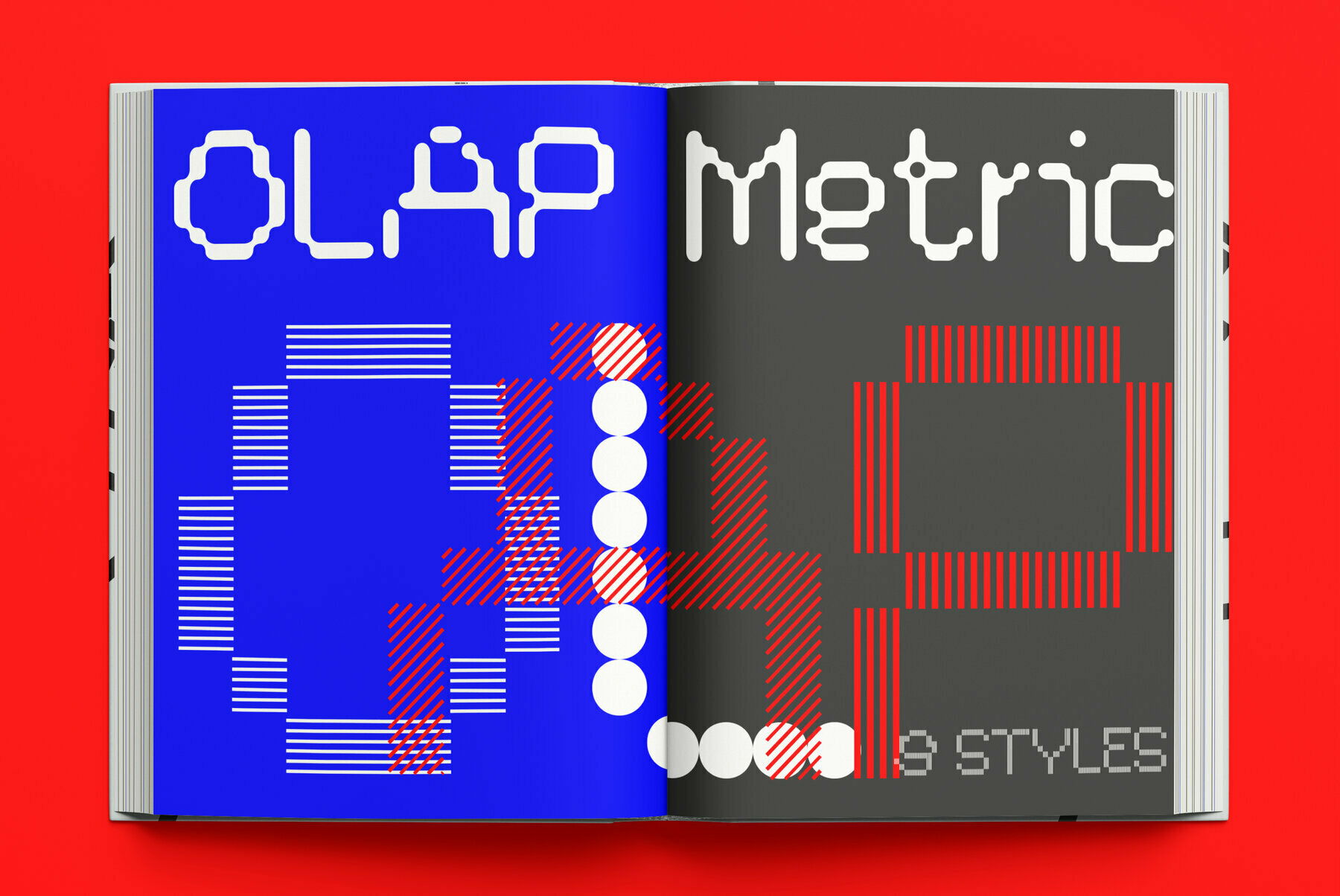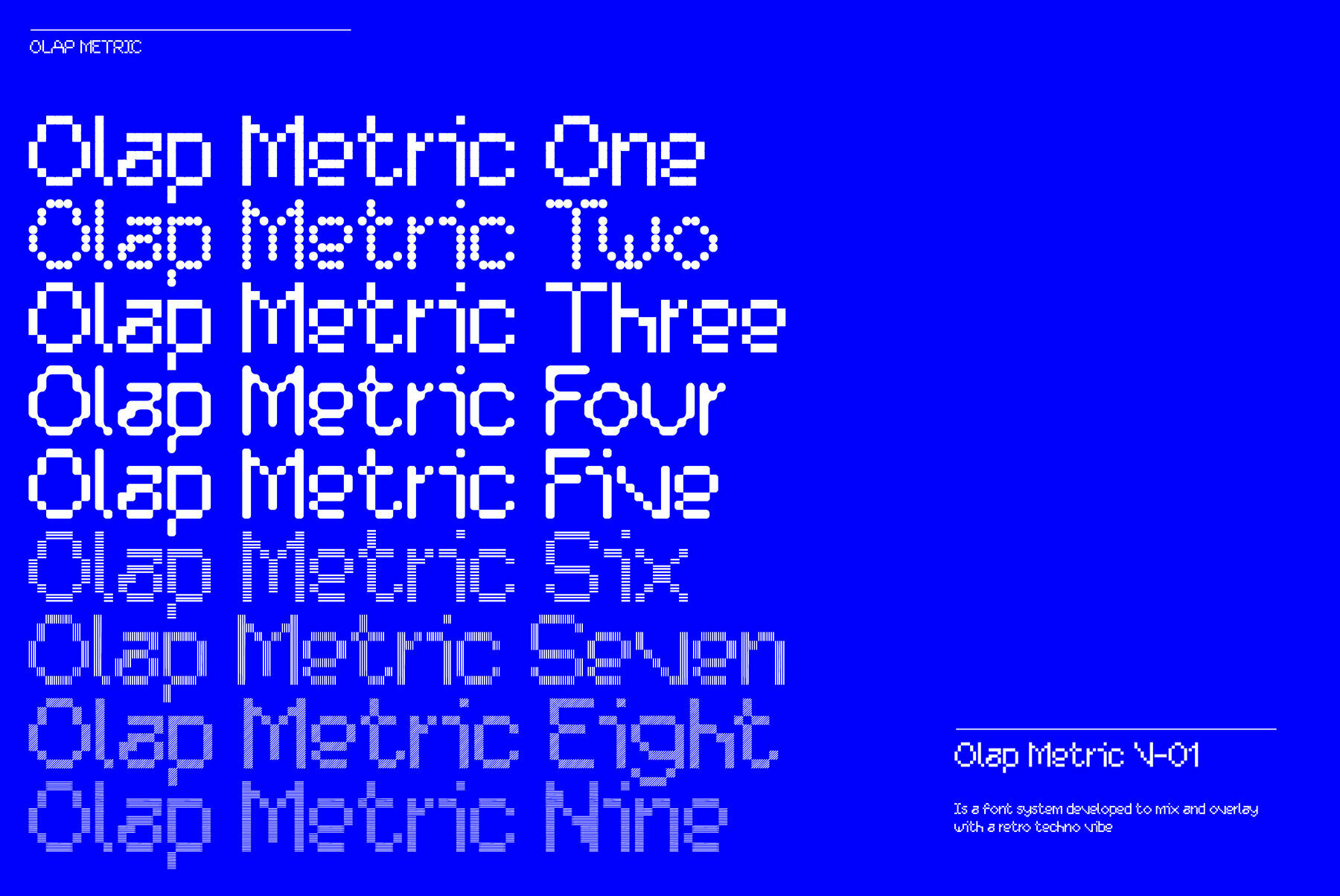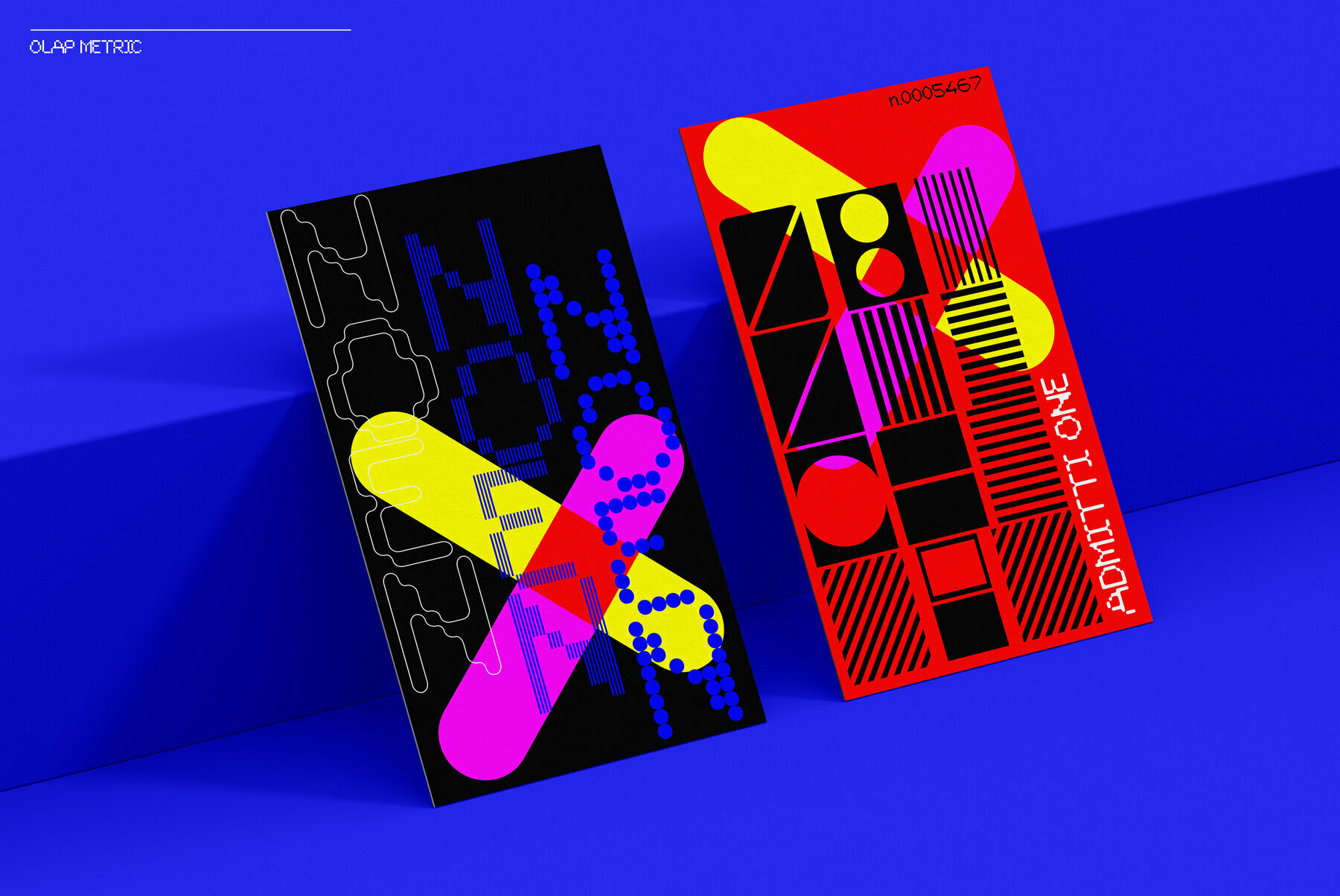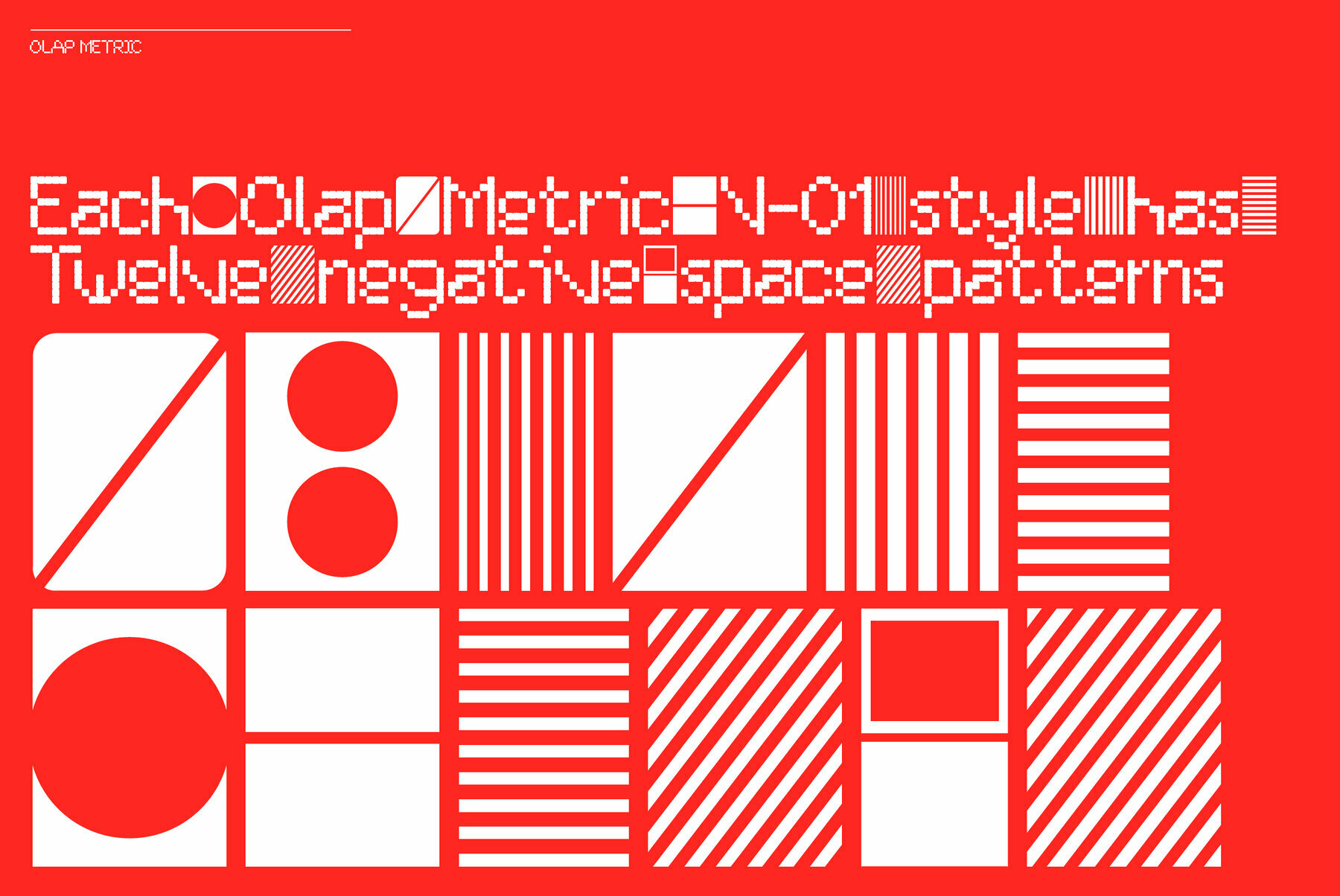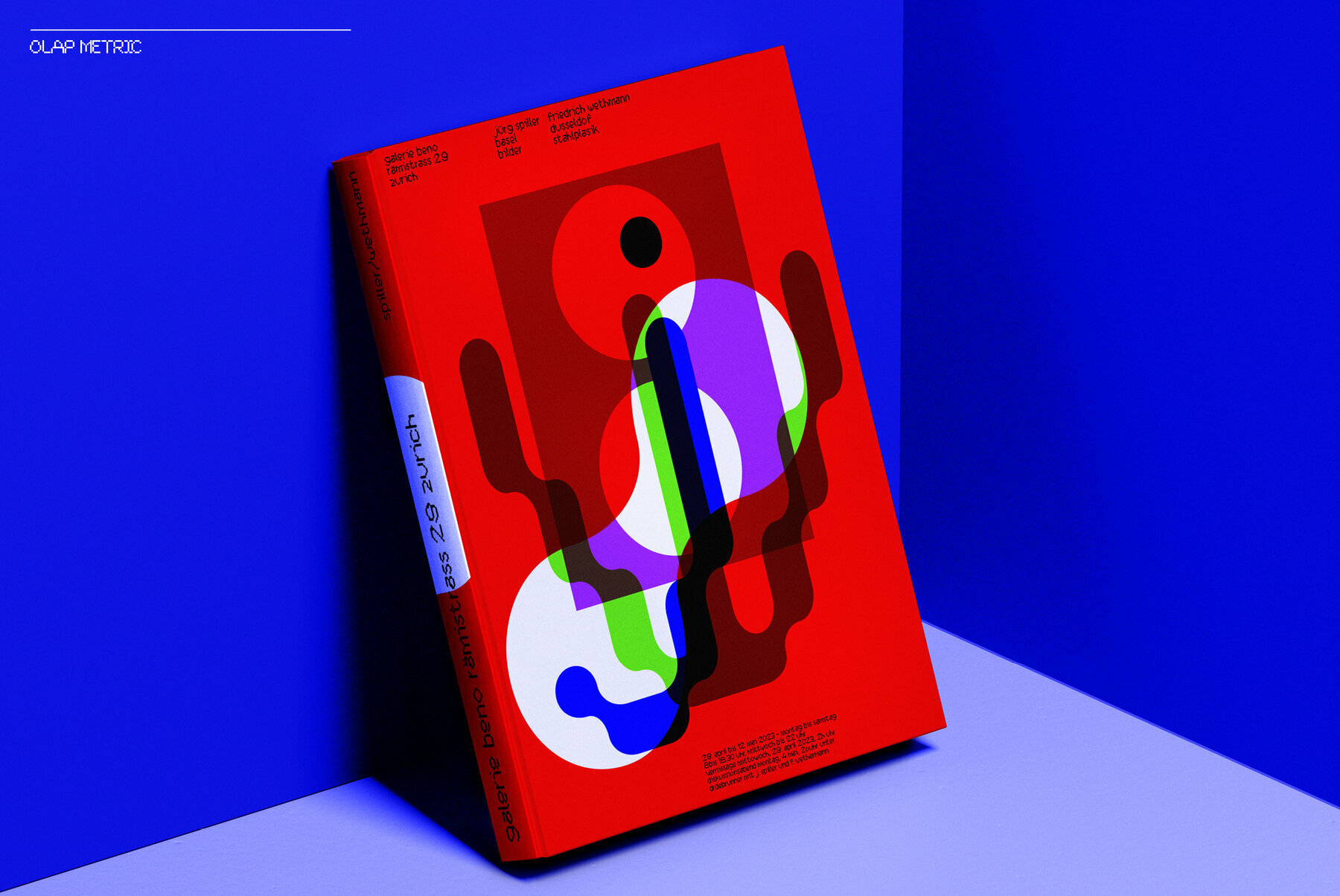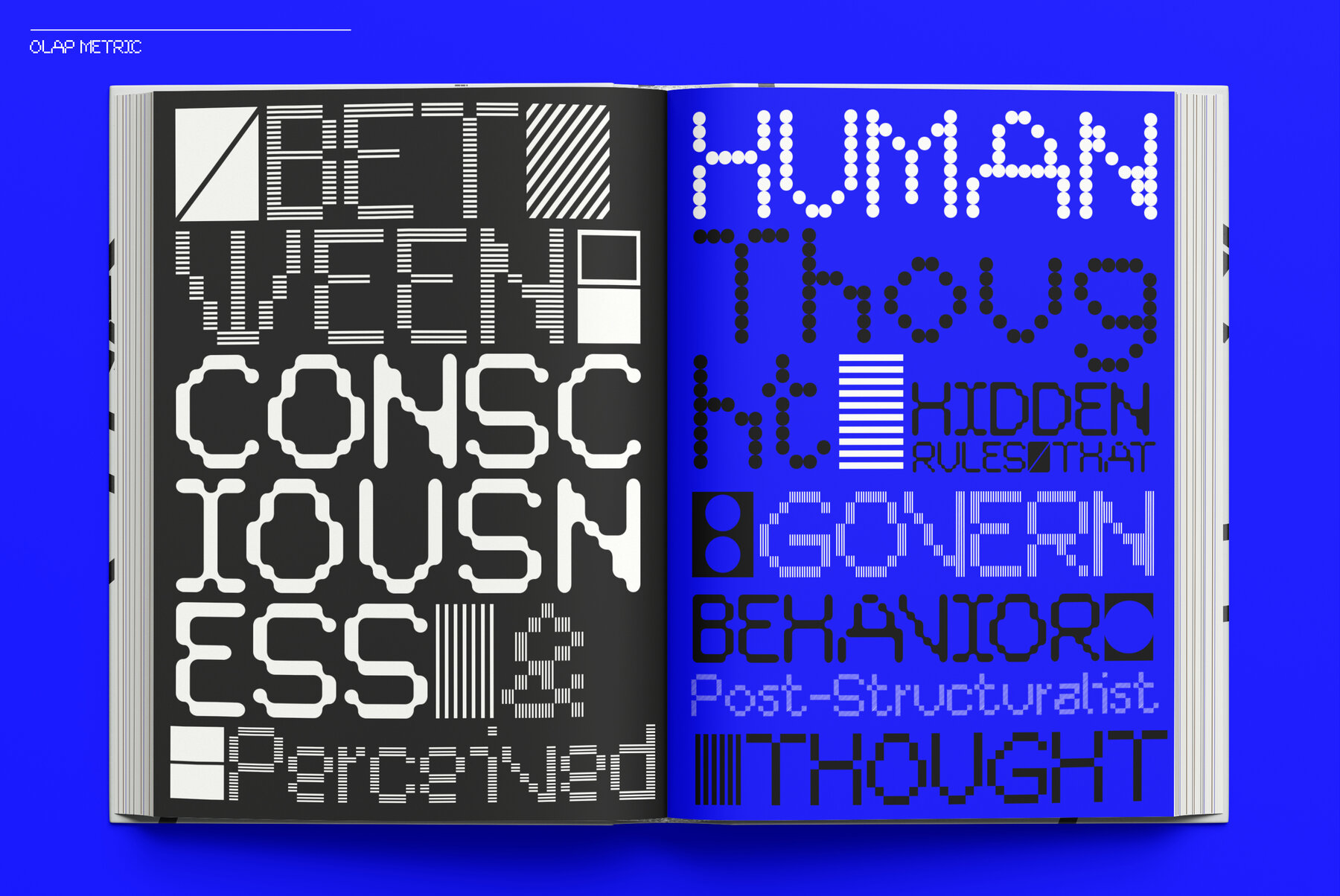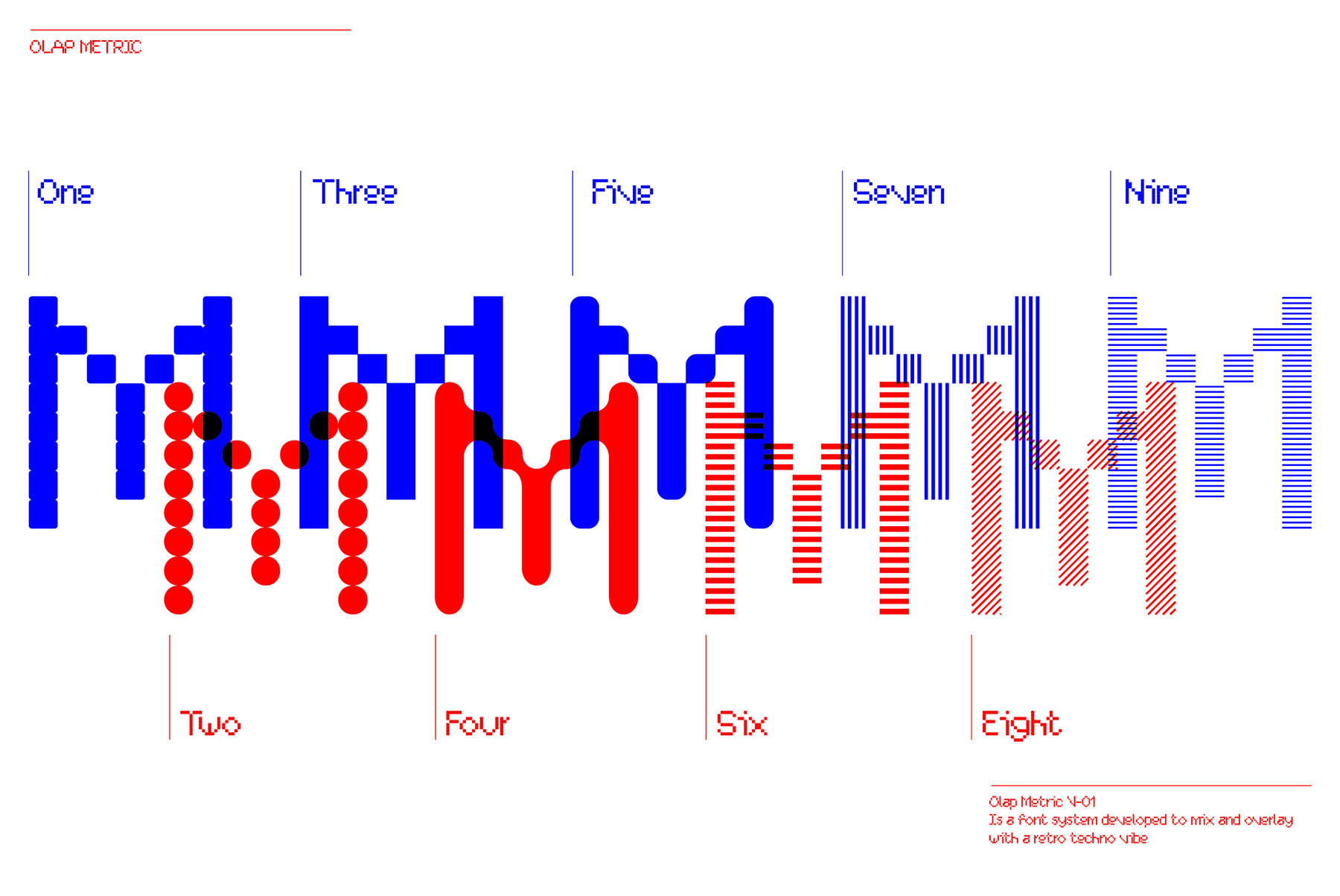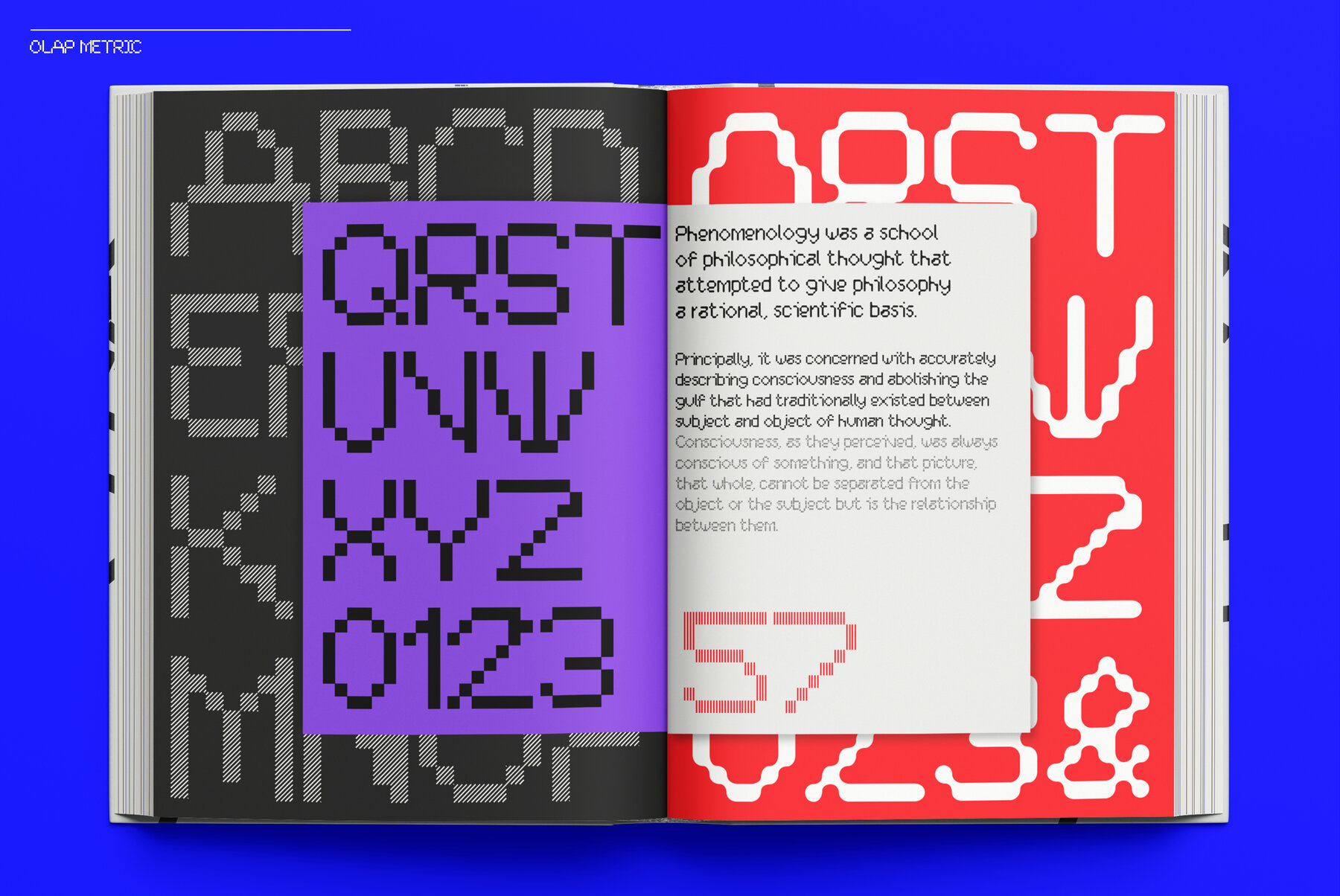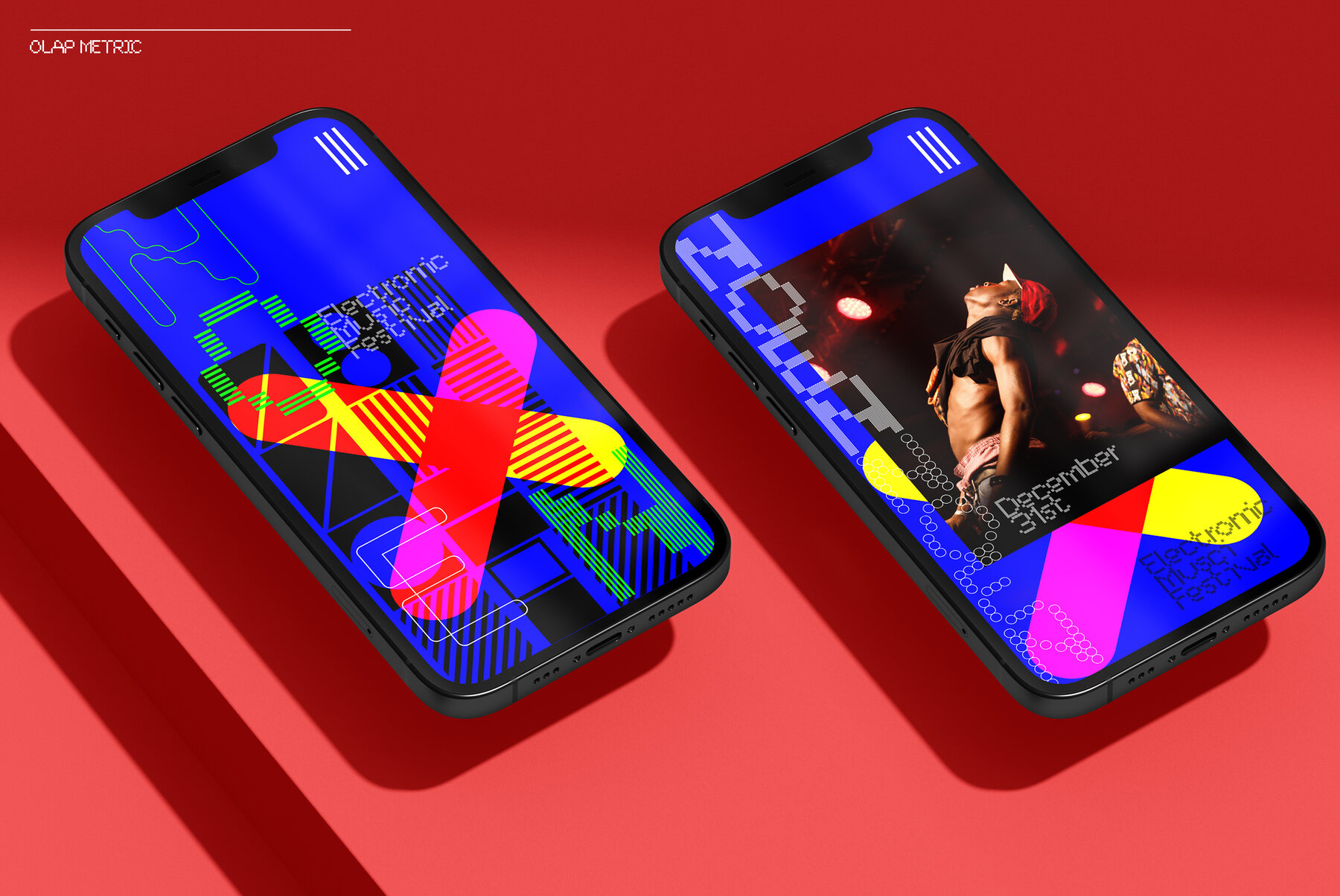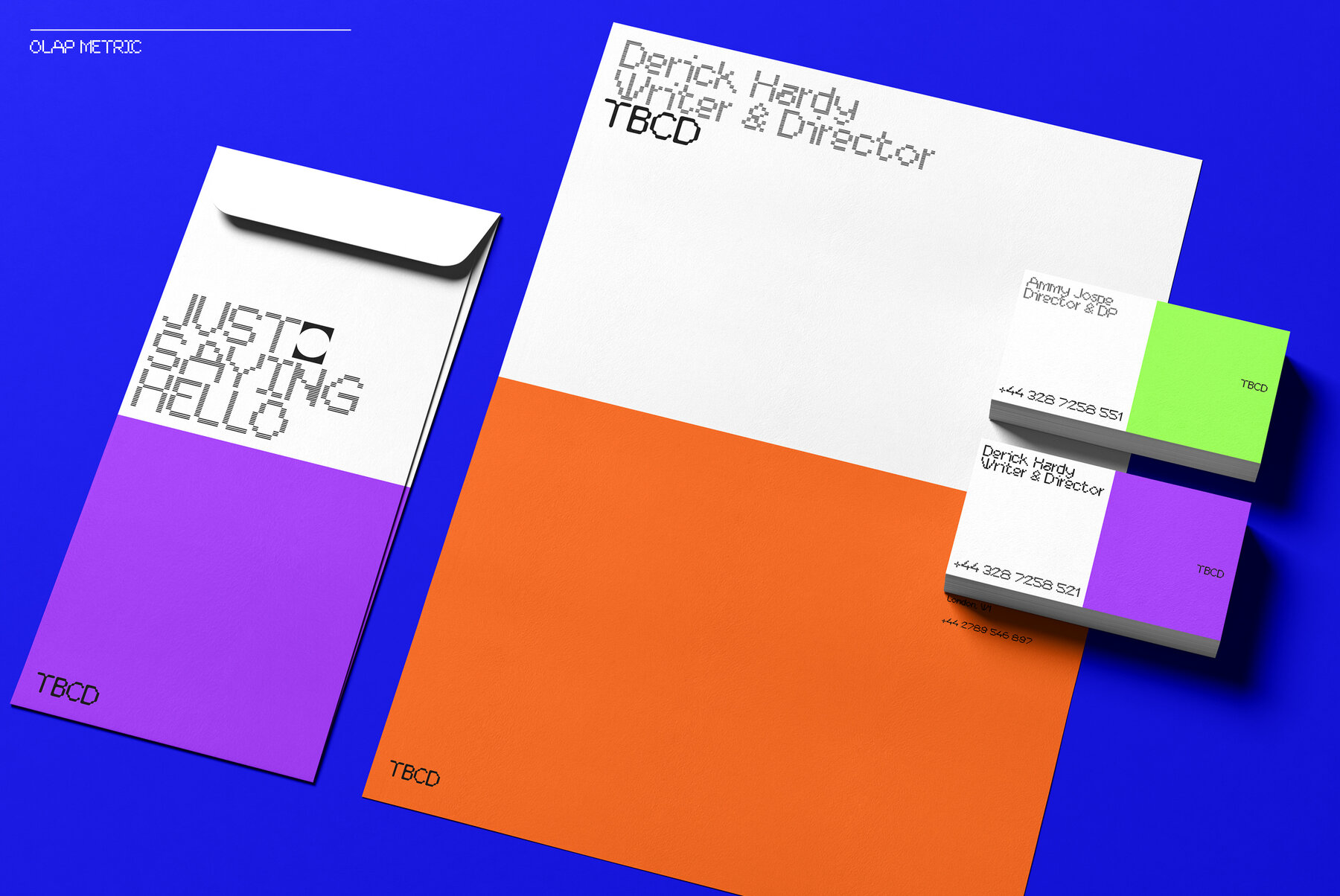
Olap Metric Font
Olap Metric is a modern, one-of kind font that will make your designs stand out against the competition. With 9 design styles and multi-language support, this stylistic display type has what you need for all sorts of projects! The family has been developed as an easy to use design system. This system provides infinite design combinations built right in so it can be used anywhere from headlines or even just personalizing social media posts - no matter how big (or small) the project might seem at first glance; Olaps is perfecto!